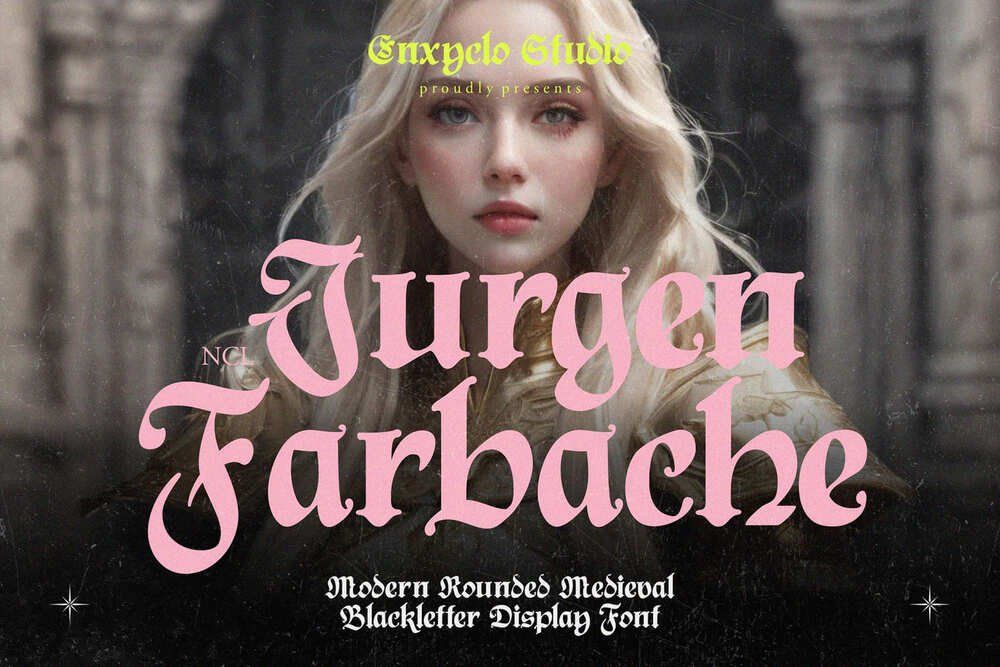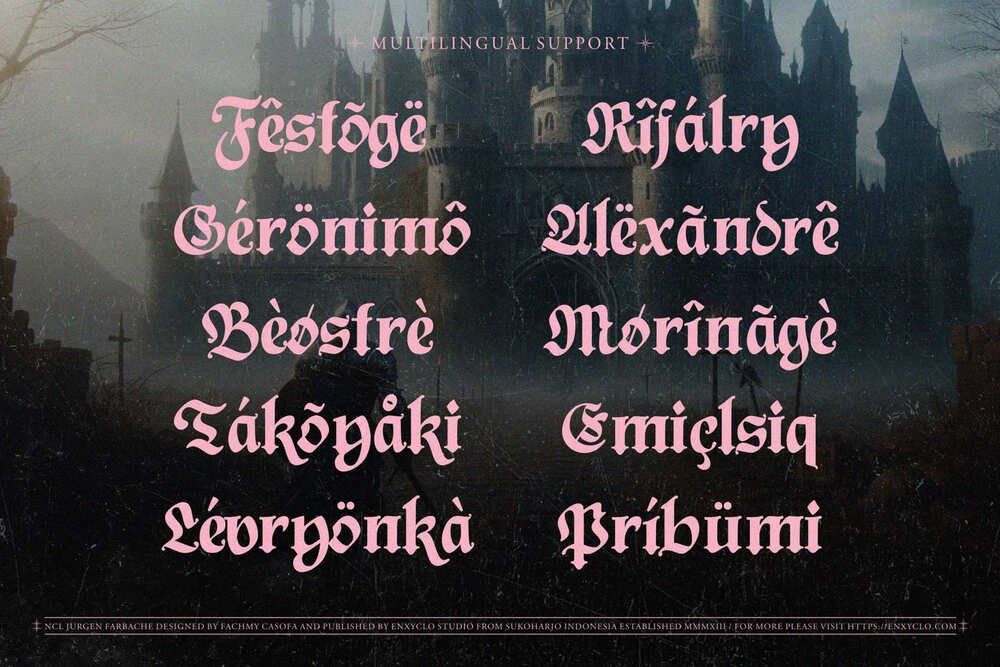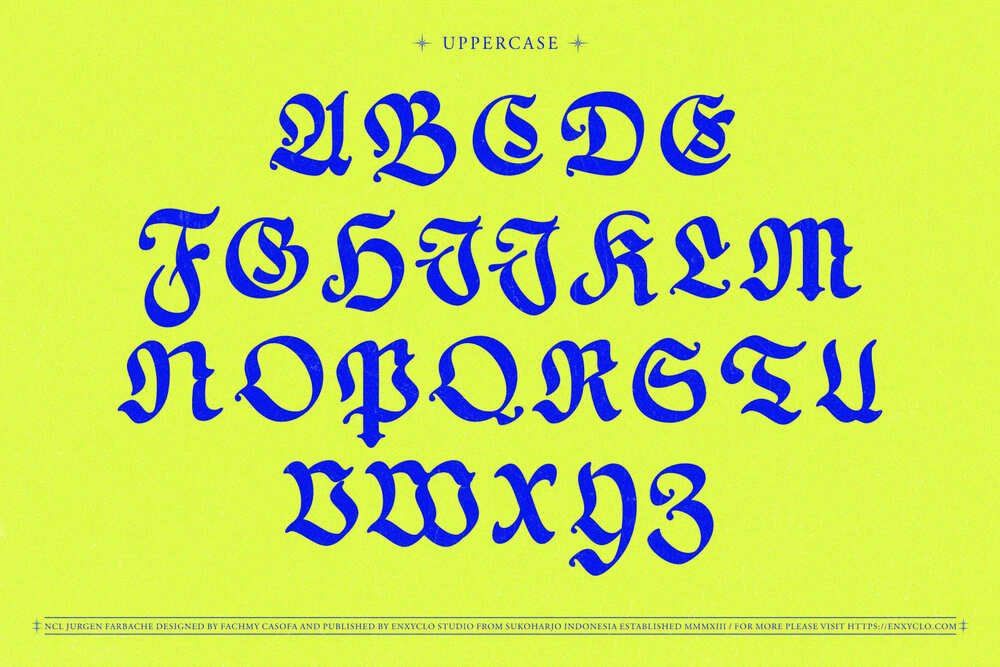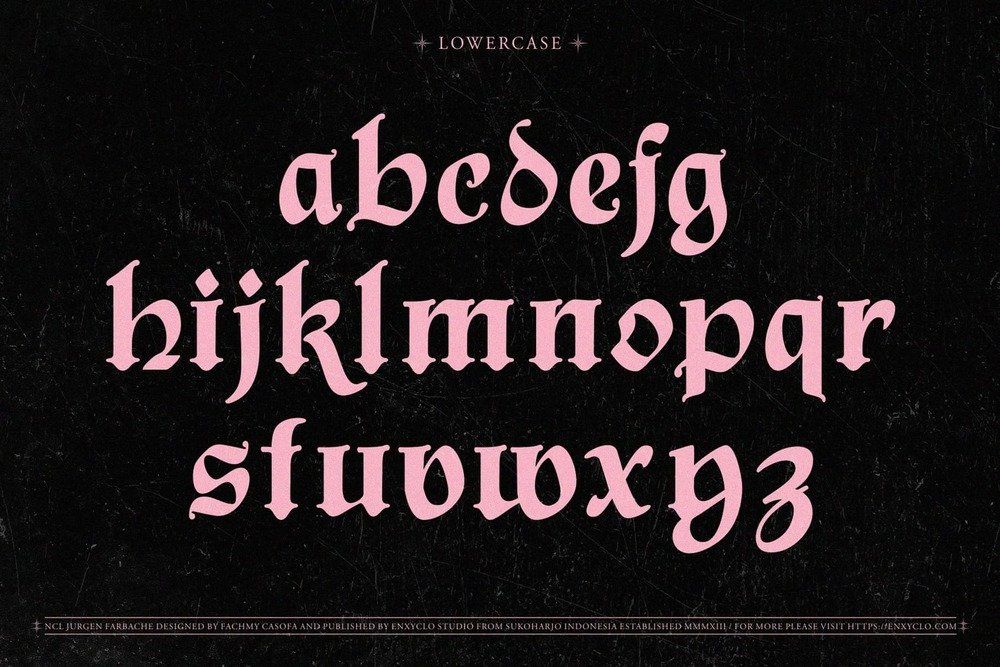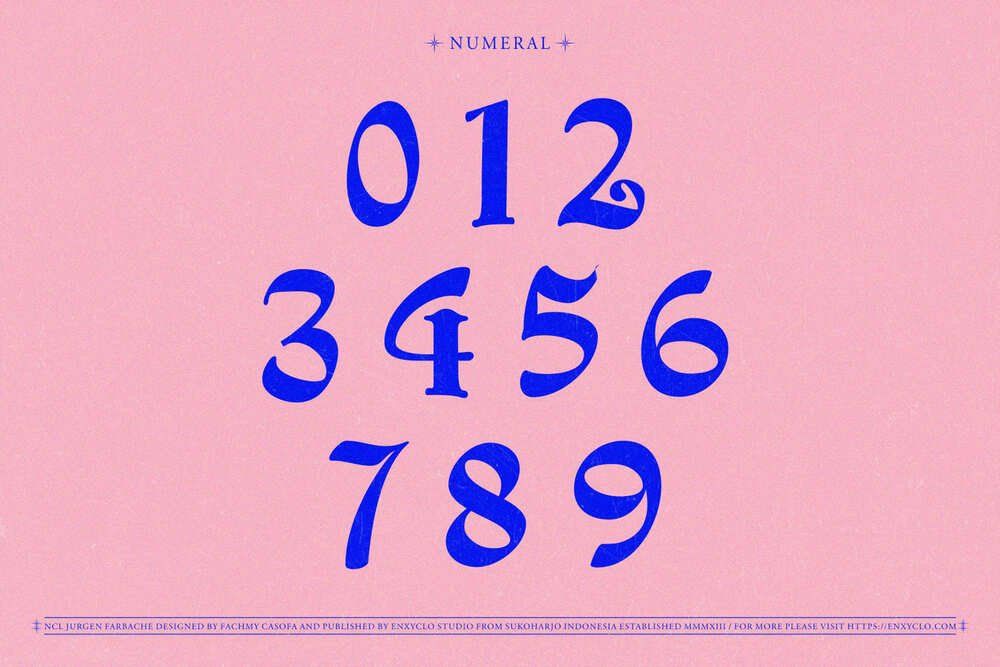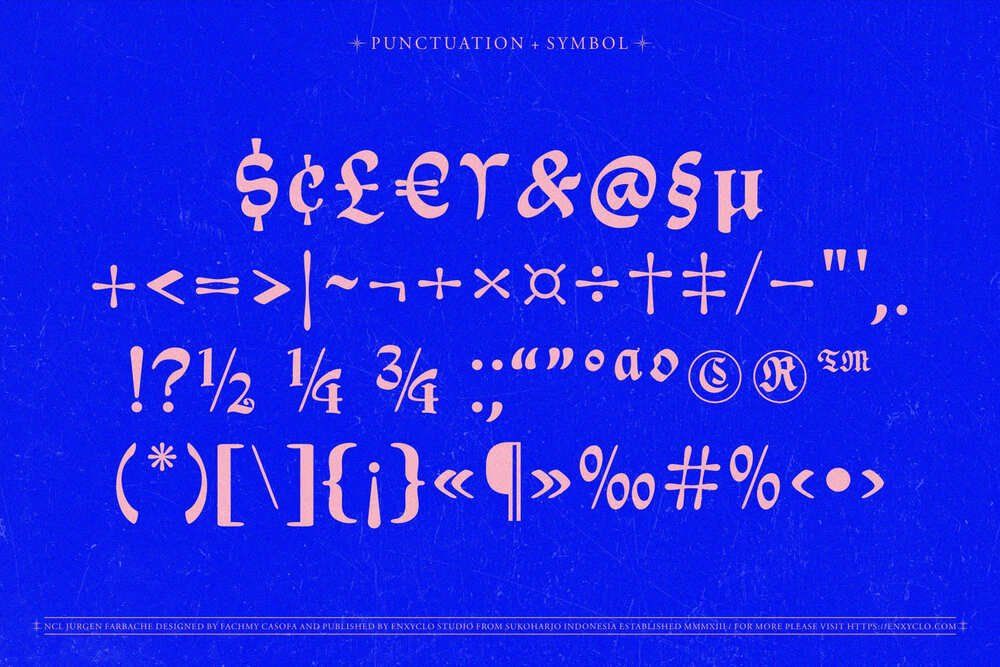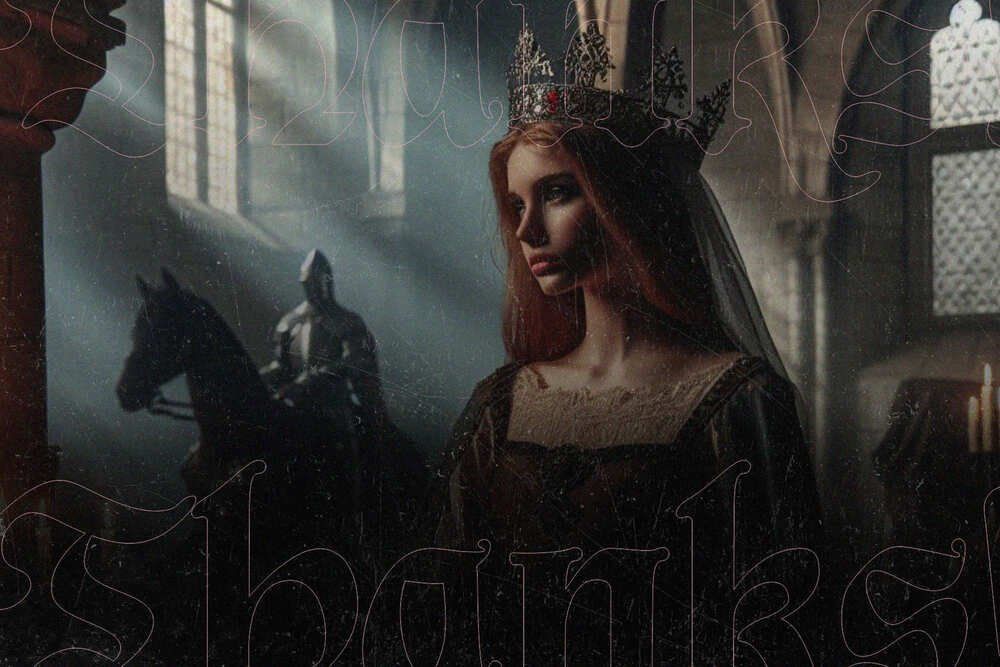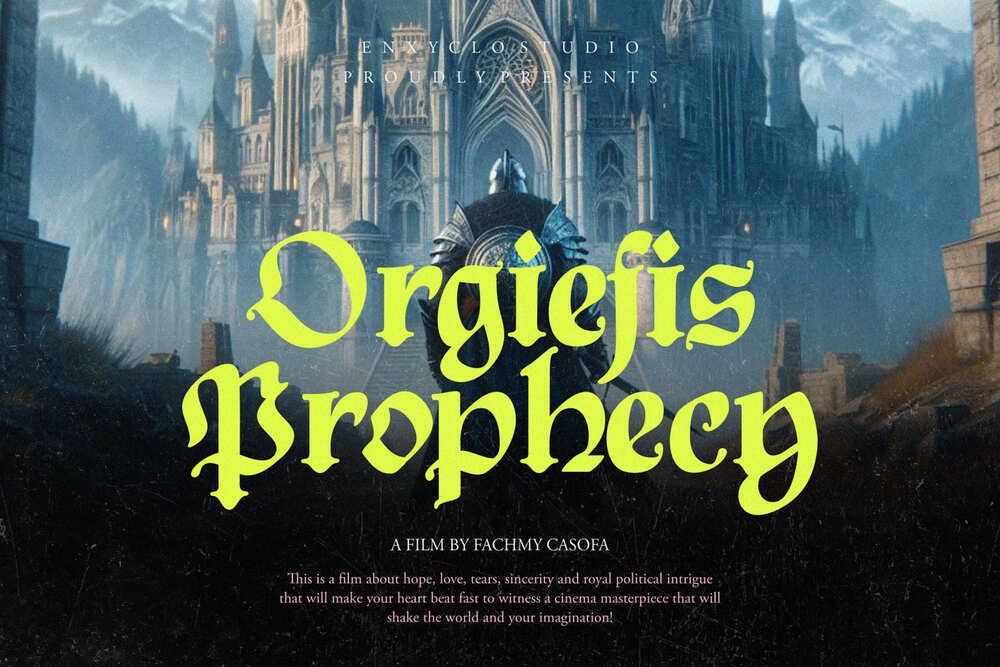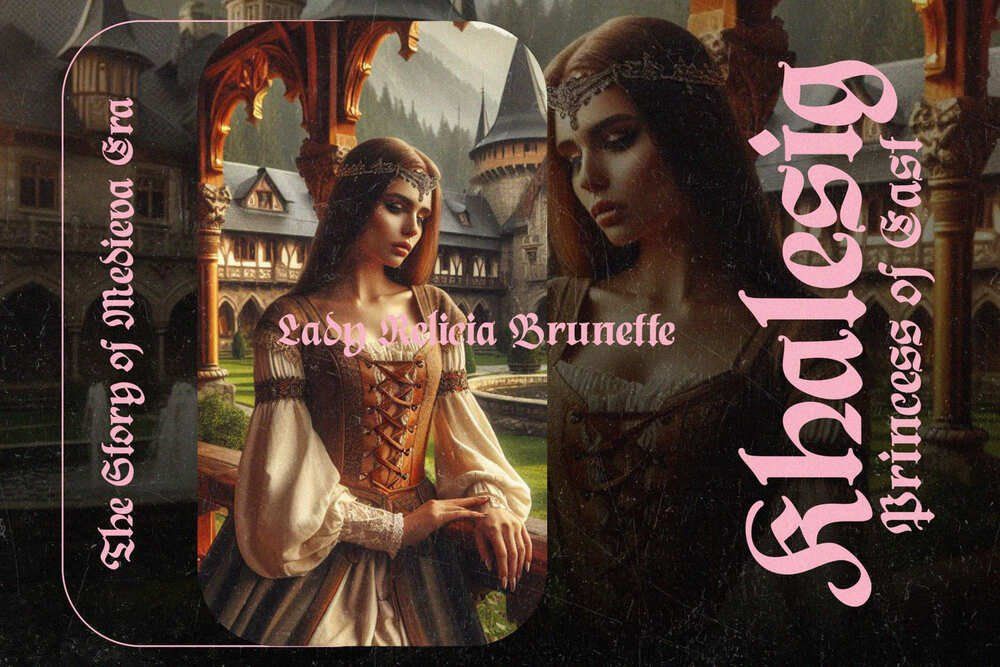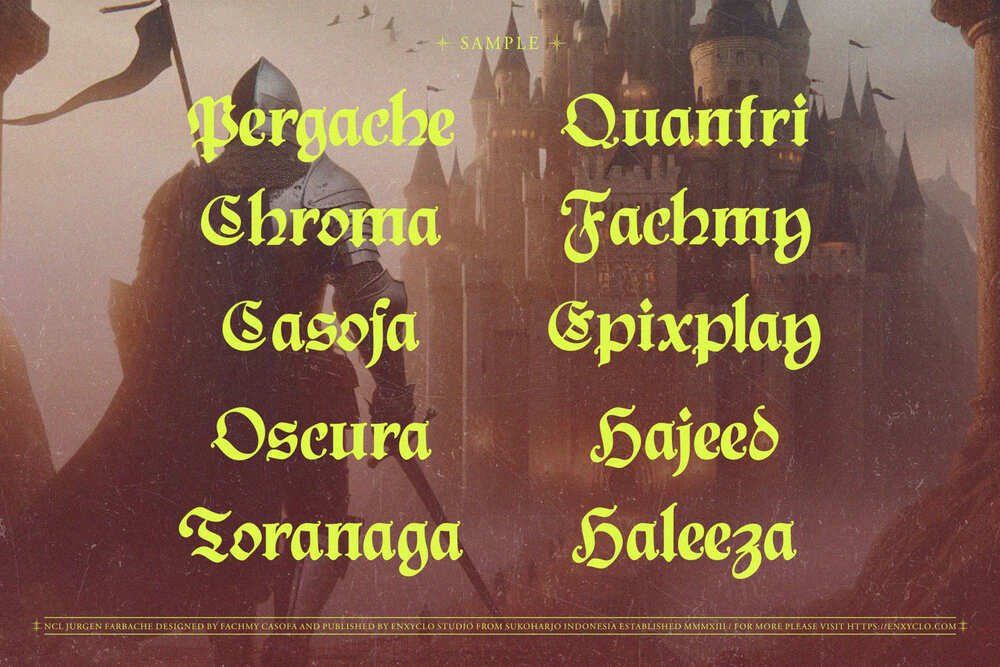
NCL Jurgen Farbache is a medieval rounded blackletter font. The letters are inspired from the middle ages with a blackletter style but have rounded corners which are unique and modern. Very suitable for creative projects that have a medieval theme or contemporary designs but have a classic touch. Its modern aesthetics bring a whole new dimension to your designs, making them stand out. Whether you’re working on a website, poster, logo, or any other project, this font adds that extra touch of innovation and sophistication.